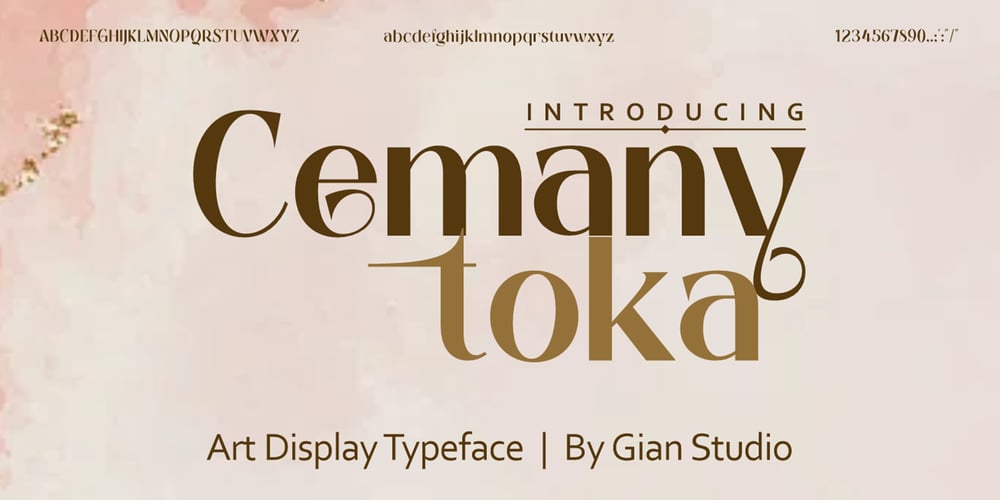
Cemany Toka Font Family was designed by Yusliana M Isa and published by Gian Studio. Cemany Toka contains 1 styles and family package options. Present to you for New Modern Display, Cemany Toka!Cemany Toka is a sophisticated ligature and alternate Display from us. This typeface has been made carefully to make sure its premium quality and luxury feel. The ligatures and alternates makes this typeface unique and stands out rather than the regular Display font.This font is very suitable for logo, headline, tittle, and the other various formal forms such as invitations, labels, logos, magazines, books, greeting / wedding cards, packaging, fashion, make up, stationery, novels, labels or any type of advertising purpose.Features :Cemany Toka ttLigatures & AlternatesLetters, numbers, symbols, and punctuationNo special software is required to use this typeface even work in CanvaMultilingual SupportPlease contact us if you have any questions. gianstudio12@gmail.comEnjoy crafting and thanks for supporting us!Thank you.